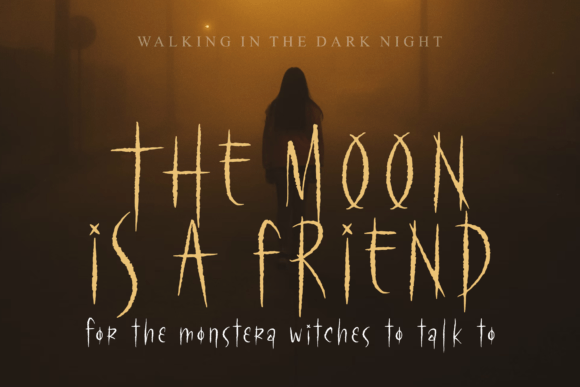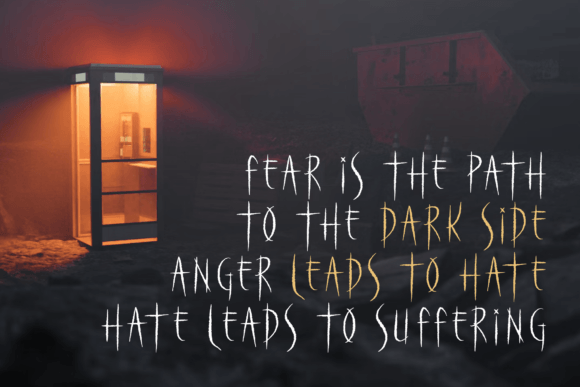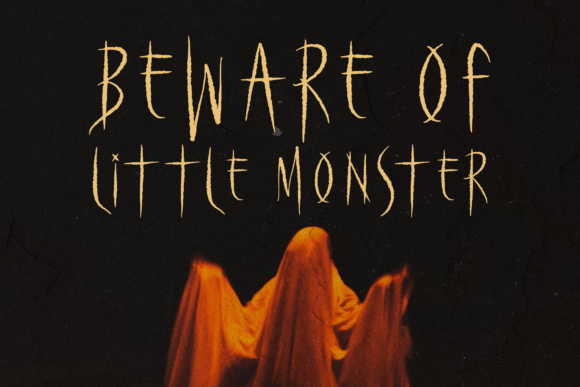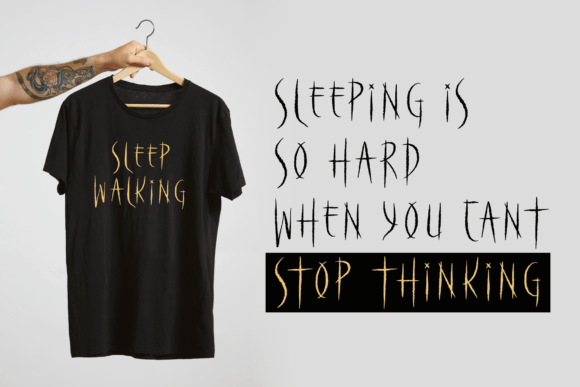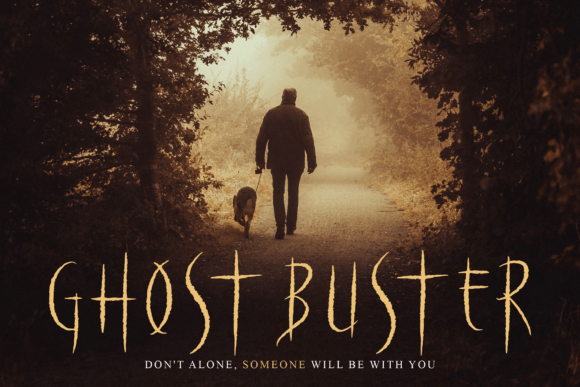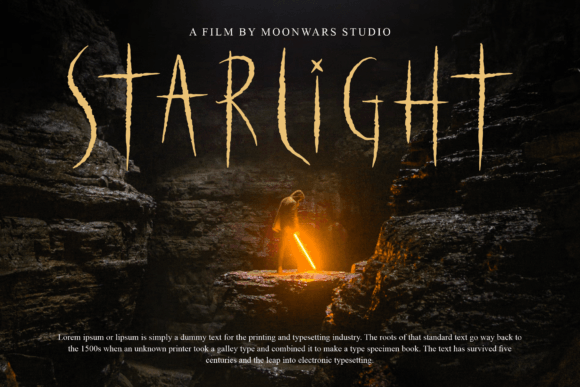
Introduction to Monstera Witches Font Font
Fonts play a crucial role in design, and the Monstera Witches Font font is a typeface that brings both character and versatility to any project. Whether you’re working on a branding project, a website, or a print design, the Monstera Witches Font font offers a unique style that can elevate your work.
Monstera Witches – Halloween Font suitable for any projects such as logos, branding projects, homeware designs, product packaging, mugs, quotes, posters, shopping bags, t-shirts, book covers, name cards, invitation cards, greeting cards, labels, photography, watermark, special events, and all your other lovely projects that need a beautiful script taste.
Monstera Witches – Halloween Font suitable for any projects such as logos, branding projects, homeware designs, product packaging, mugs, quotes, posters, shopping bags, t-shirts, book covers, name car
Key Features of Monstera Witches Font Font
Why Choose Monstera Witches Font Font?
The Monstera Witches Font font is more than just a typeface – it’s a design tool that helps you communicate your message with style and clarity. Its unique character set and versatile design make it suitable for a wide range of applications, from elegant invitations to bold headlines.
With its carefully crafted letterforms and balanced proportions, the Monstera Witches Font font ensures readability and visual appeal across all mediums.
What makes Monstera Witches Font font special?
The Monstera Witches Font font stands out with its unique design, exceptional readability, and versatility across various design applications.